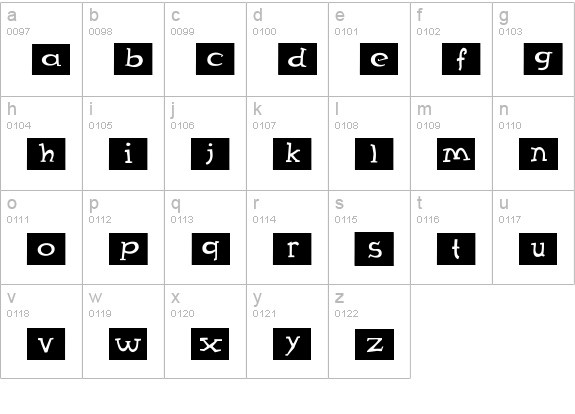
Mex Regular-Two is the standard, neutral variant in the Mex typeface family \xE2\x80\x94 well suited to general body text, paragraphs, and standard typographic work.
Mex Regular-Two is a modern and stylish font that exudes a sense of sophistication and elegance. With its clean lines and sharp edges, this font is perfect for a wide range of design projects, from branding to editorial design. The versatility of Mex Regular-Two makes it a go-to choice for designers looking to make a statement with their typography. One of the best things about Mex Regular-Two is that it is completely free to download. You can easily access this stunning font at FontsMarket.com, where you can download it and start using it in your projects right away. Whether you're working on a logo, website, or print design, Mex Regular-Two is sure to elevate your work and give it a professional edge. Don't miss out on this amazing font – download Mex Regular-Two today and take your designs to the next level.